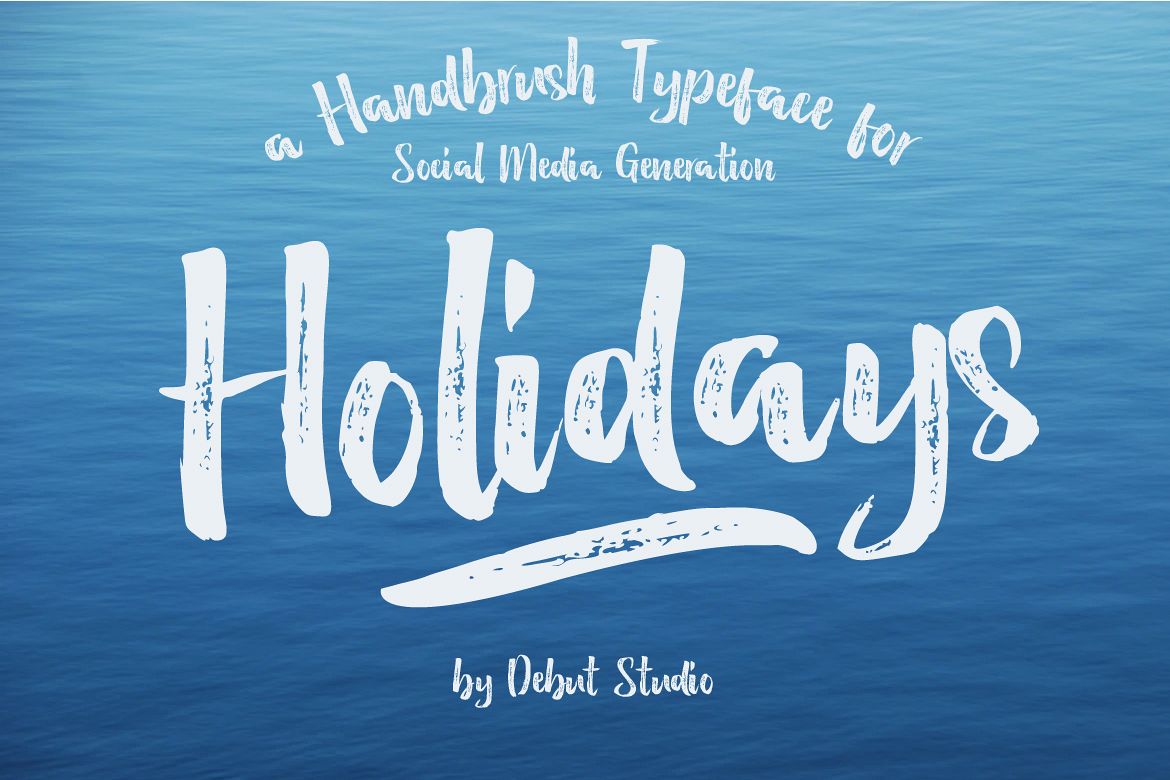
Holidays Brush
Holidays Handbrush Typeface
Debut Studio presents the latest font Holidays Handbrush Typeface
This font  is perfect for design purposes such as holidays need, like logo design, t-shirt, heading, magazine, newspaper, website, to design quotations, posters, business cards, and others.
- Multilingual support
- spread your message globally AÀÁÂÃÄÅCÇDEÈÉÊËIÌÍÎÏNÑÒÓÔÕÖUÙÜÚÛWYÝŸ?ŸÆ